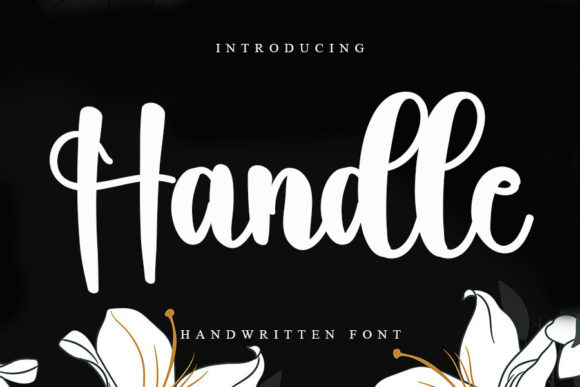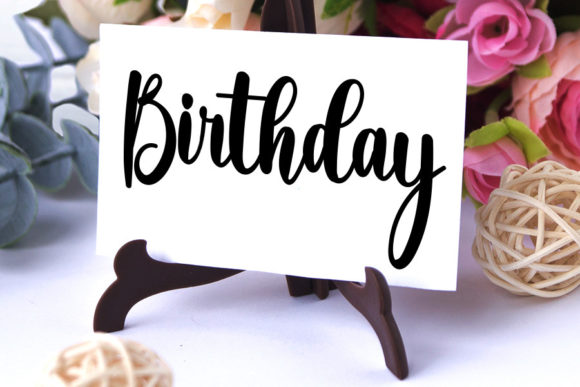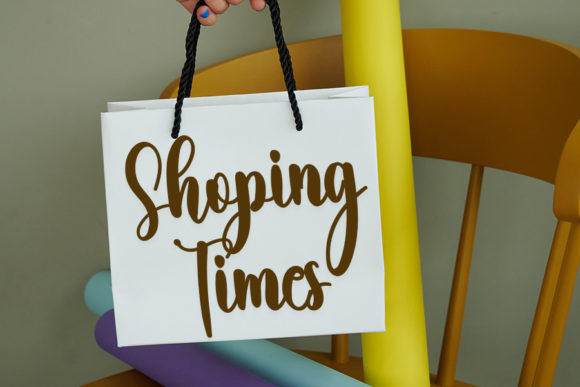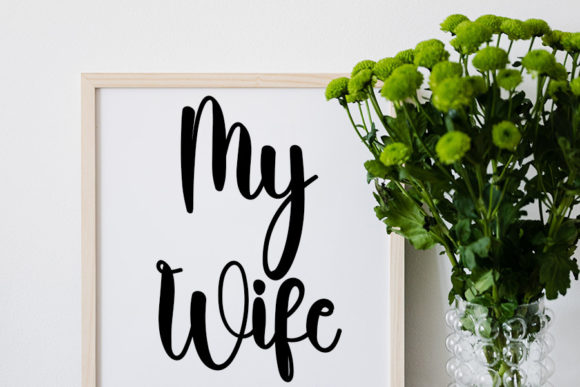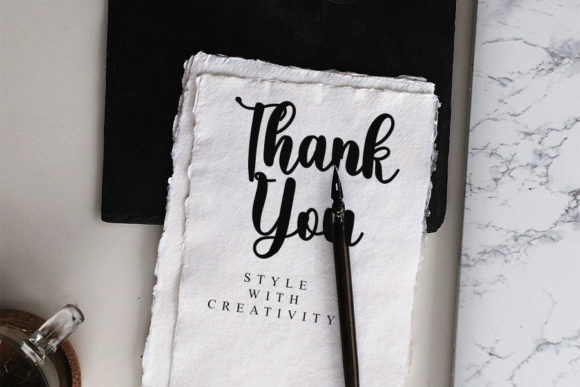
Handle Font
About Handle Font
Handle is a stylish handwritten font that exudes a contemporary atmosphere while embodying impeccable form, inspired by the timeless elegance of classic calligraphy. With a perfect balance and varied strokes, this font is meticulously designed to elevate the beauty of your projects, offering a touch of sophistication and modern flair.
The contemporary vibe of Handle makes it a versatile choice for a wide range of design applications. Whether you’re working on branding materials, social media posts, product packaging, or any project that requires a stylish touch, Handle seamlessly integrates into your creative vision. Its balance of modern aesthetics with classic calligraphic inspiration ensures that your designs exude a timeless and sophisticated charm.
The varied strokes and impeccable form of Handle contribute to its visual appeal, allowing it to stand out in a crowded design landscape. Whether used for logos, invitations, advertisements, or editorial layouts, this font adds a level of elegance that captures attention and leaves a lasting impression.
Handle is not merely a font; it’s a design asset that enhances the overall aesthetic of your projects. Its stylish handwritten elements bring a sense of authenticity and personality, making it an ideal choice for those seeking to convey a unique and refined image.
In summary, Handle is a stylish handwritten font designed to elevate the beauty of your projects. Its contemporary atmosphere and impeccable form, inspired by classic calligraphy, make it a versatile and sophisticated choice for a variety of design endeavors. Embrace the timeless yet modern allure of Handle, and let it be the design element that adds a touch of elegance to your creative expressions.